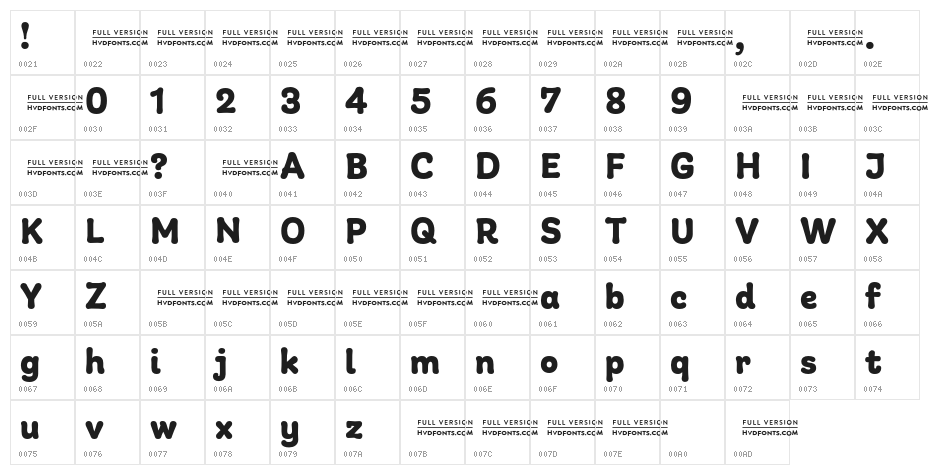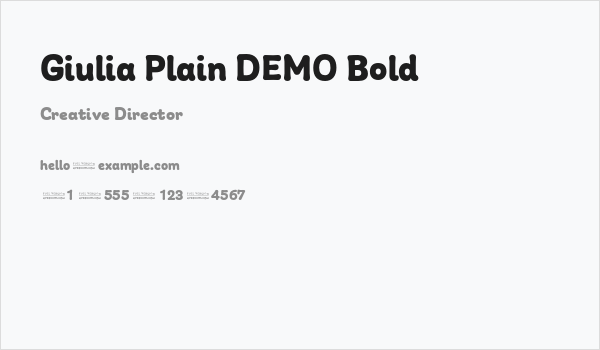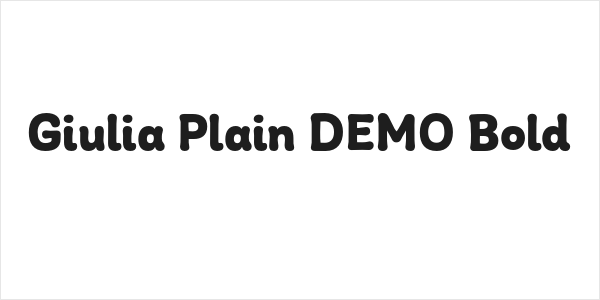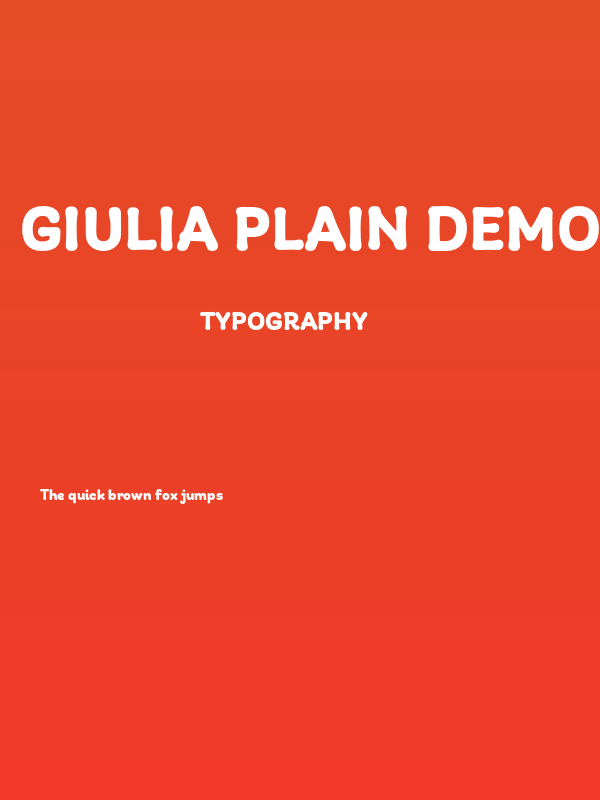
Giulia Plain DEMO Bold Font
Giulia Plain DEMO Bold Description
This font features a bold and rounded style, characterized by its thick strokes and smooth curves. The uppercase and lowercase letters maintain a consistent weight, providing a uniform appearance. The numerals are equally bold, ensuring readability and impact. The overall design is playful and approachable, making it suitable for a variety of creative applications. The special characters are designed with the same boldness, ensuring they integrate seamlessly with the rest of the typeface.
| Proposed Projects | Ideal for children's books, playful branding, posters, and social media graphics. |